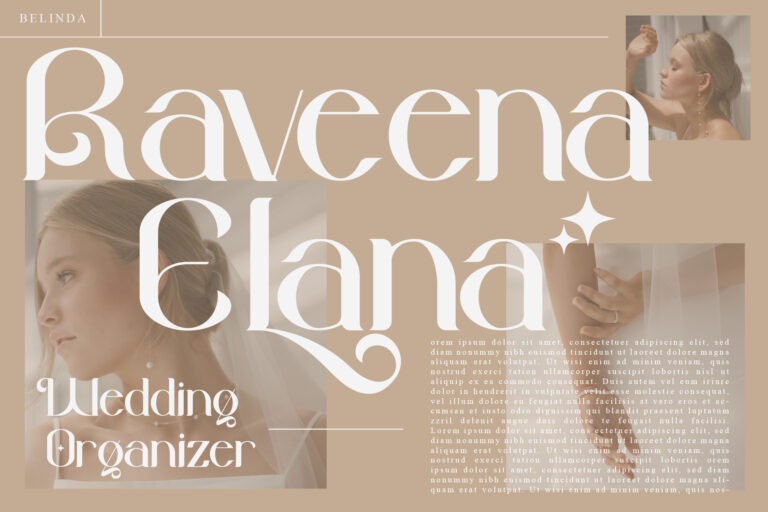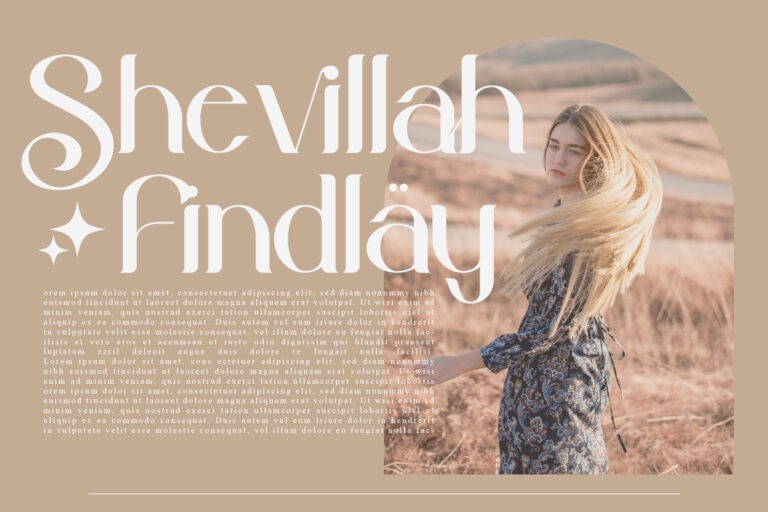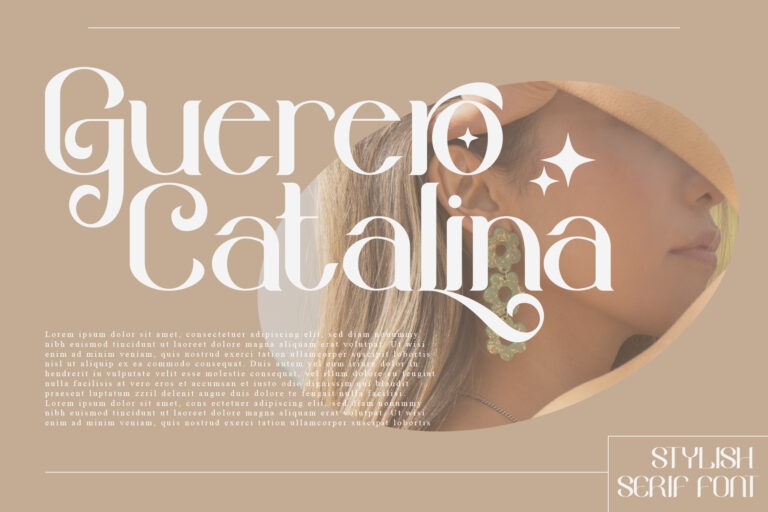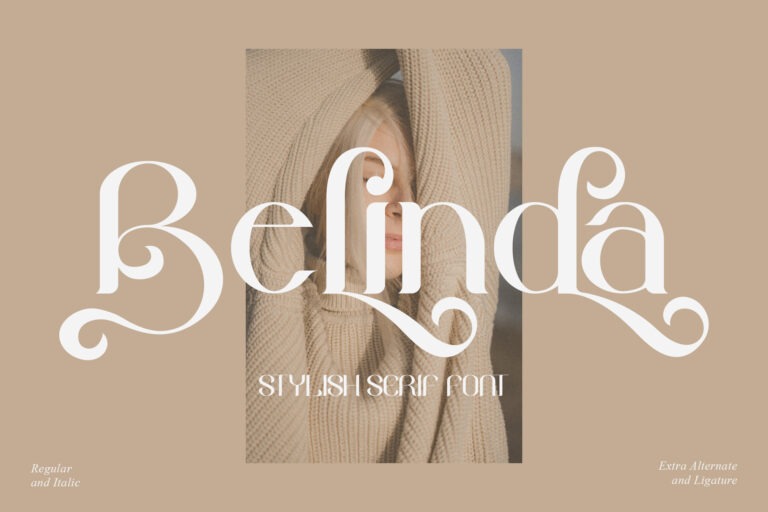
Belinda Serif Font
This is a elegant serif typeface that has own unique style & modern look. Designed primarily as a captivating handcrafted with style. Made from font designer named Storytype Studio. This typeface is perfect for an elegant & luxury logo, book or movie title design, fashion brand, magazine, clothes, lettering, quotes, and so much more.